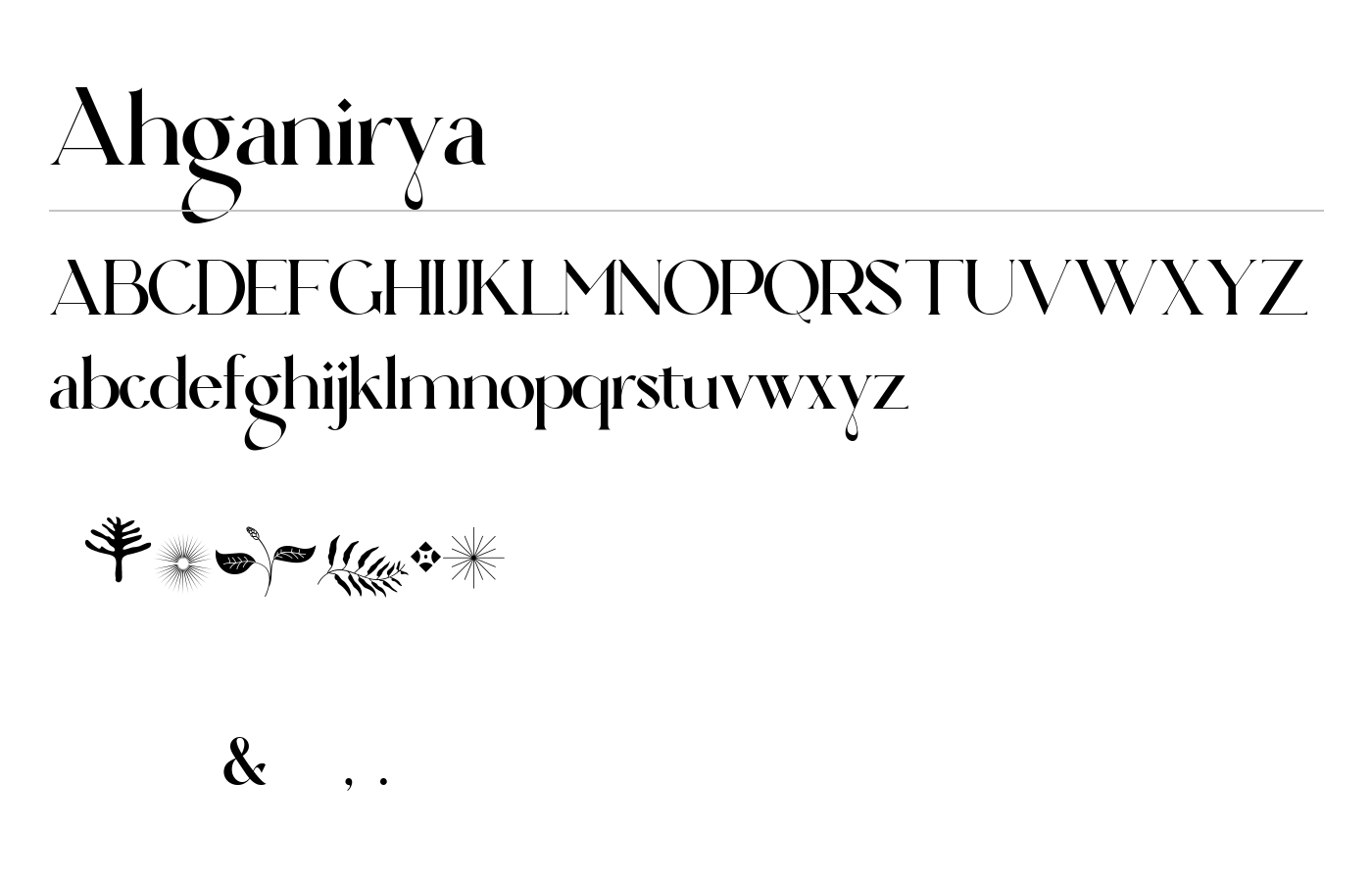
Ahganirya is a refined serif font with a modern flair, featuring high contrast between thick and thin strokes and delicate, bracketed serifs. Its elegant letterforms are accented by unique details like teardrop-shaped terminals and distinctive curves, giving it a sophisticated, artistic personality perfect for luxury branding, editorial design, and upscale packaging. This font shines in headlines and logos where a stylish, graceful impression is desired.
Ahganirya Font
About Ahganirya Font
| Font family | Ahganirya Font |
| Designer | Putu Dody Permana |
| Trademark | Hishand Studio |